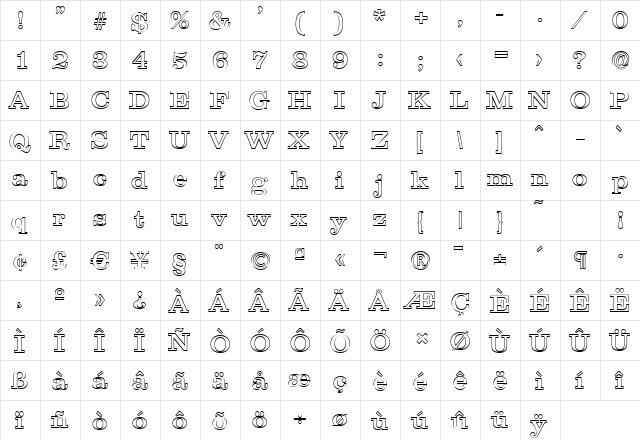
JamesBeckerOutline Regular
Design Context for JamesBeckerOutline Typeface
JamesBeckerOutline brings ornamental detail and strong personality to headlines and identities, where visual impact matters more than quiet functionality.
Font Pairing: Pair with a clean neutral sans-serif for body copy to let JamesBeckerOutline's character lead without overwhelming the composition.
Pro Tip: Use JamesBeckerOutline exclusively at display sizes — it was designed to be seen, not read at length. Let a neutral companion handle body copy.